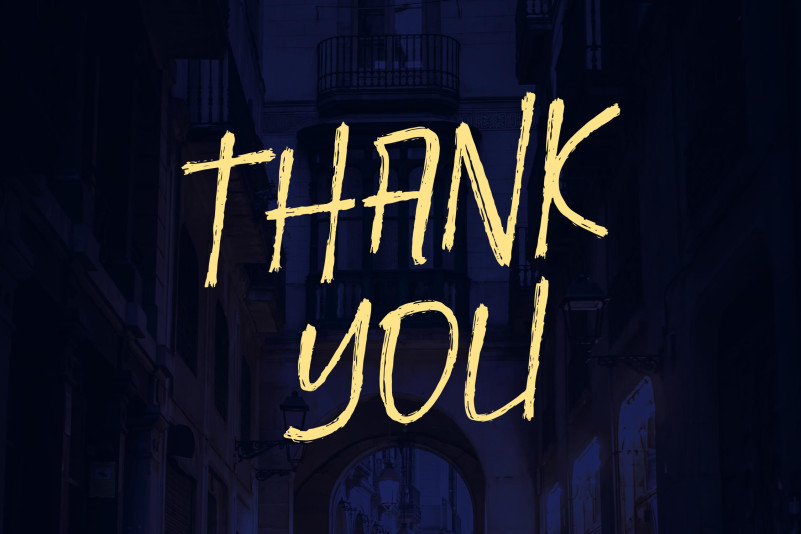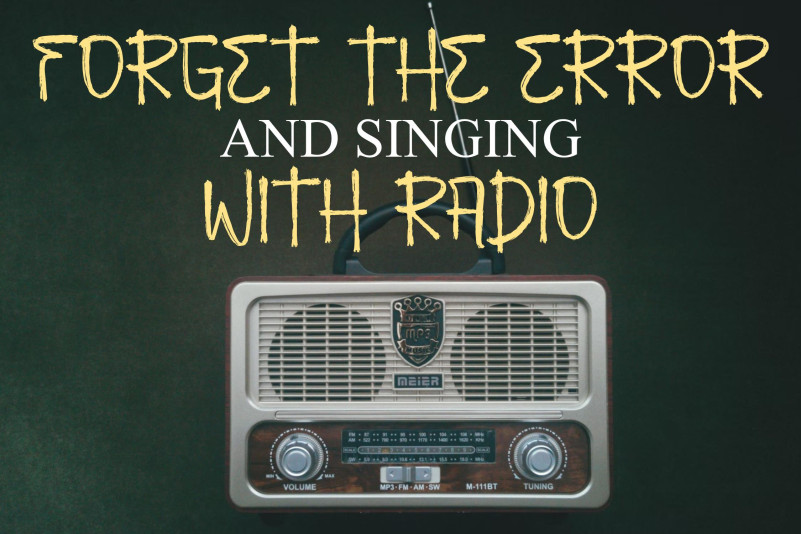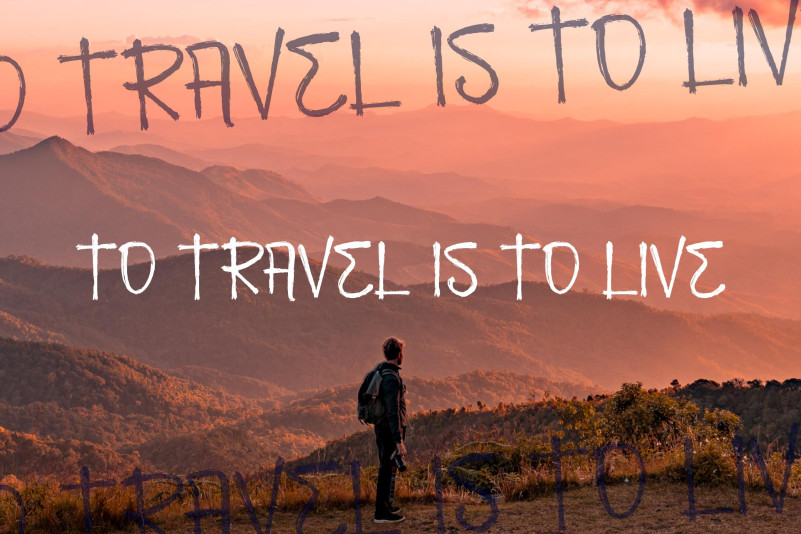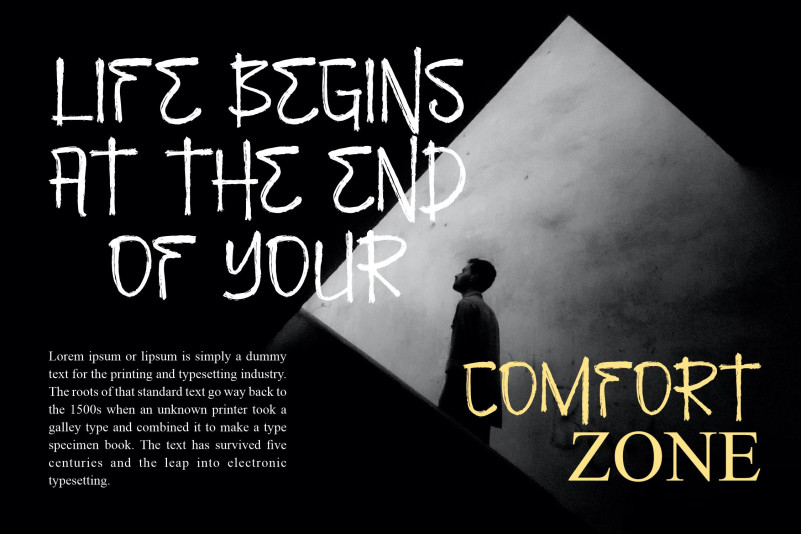
Beverly Switch – Brush Stroke Font
Beverly Switch – Brush Stroke Font , from Perspectype Studio, suitable for any projects such as: logos, branding projects, homeware designs, product packaging, mugs, quotes, posters, shopping bags, t-shirts, book covers, name card, invitation cards, greeting cards, label, photography, watermark, special events, and all your other lovely projects that need a beautiful script taste.